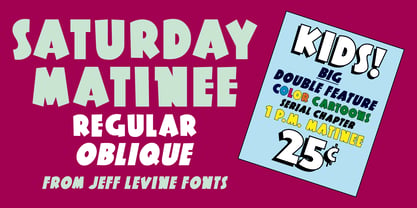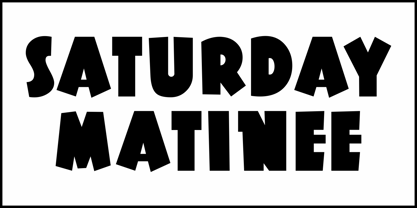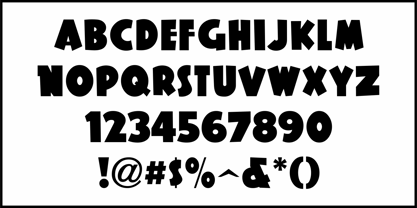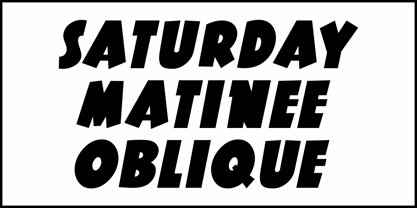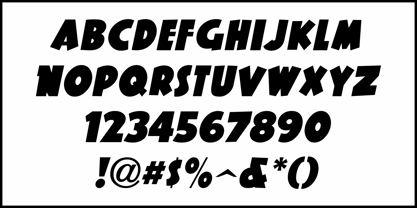
Saturday Matinee JNL
by Jeff Levine
Here's a bold and playful sans serif type design from hand lettering found in an ad promoting various releases from RKO pictures. The ad originally appeared in the June 25, 1937 issue of The Film Daily.
It's now available as Saturday Matinee in both regular and oblique versions.